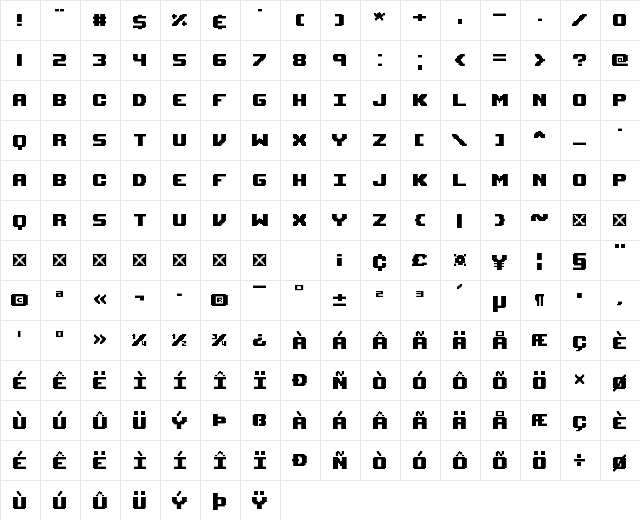
Upheaval TT BRK Regular Font Preview
Upheaval TT BRK Regular
Upheaval TT BRK Regular Font Details
| Foundry | ƎIGMA FONTS |
| Designer | ƎIGMA FONTS - Brian Kent |
Design Context for Upheaval TT BRK Typeface
Upheaval TT BRK takes a measured approach to typography — its balanced proportions and neutral character make it a reliable workhorse for both digital and print work.